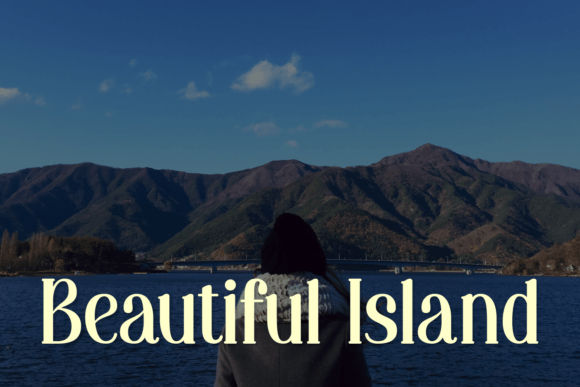
Beach Cottage is an elegant serif font that captures coastal charm and timeless sophistication. With delicate curves and refined details, it’s perfect for wedding invitations, branding, and editorial designs. Its graceful style evokes warmth and elegance, making any project feel effortlessly classy and inviting.
Beach Cottage Font